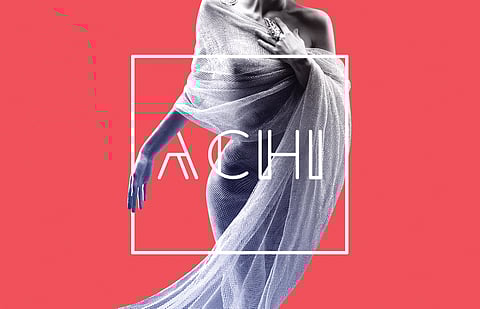
Fonts have forged an almost unreal significance since the era of letter printing. There came the Serif, Sans Serif typefaces, which then evolved into Segoe, Frutiger, Univers, Helvetica and a multitude of other fonts that are presently innumerable. Inspiration from them to develop a new font was only found to be innate.
The font 'Achi' aims to outshine the regular fonts, radiating a unique style in the very first glance. The decision to choose only uppercase in the font stemmed from the desire to see it appear in bold and fascinating titles, phrases and of course brand names. With this in mind, the vision and purpose were
clearly set.
Creativity vocalises itself to each designer in its own specific manner, including through ink and paper – for example, letter-forming by hand being the first instinct. It is often the most simple of acts that finds itself being used as the common construction, shape or character, then applied to all letters in a font. In Achi's case, it was the parallel line-formation and its spacing between each and every letter. Once a letter was shaped, the command over the font enabled executing an almost similar style to all other letters. Articulating the hand-drawn designs into the computer, using basic shapes and grids in Adobe Illustrator canvas, is time-consuming but effective, followed by polishing and tweaking as a final touch using Fontlab.